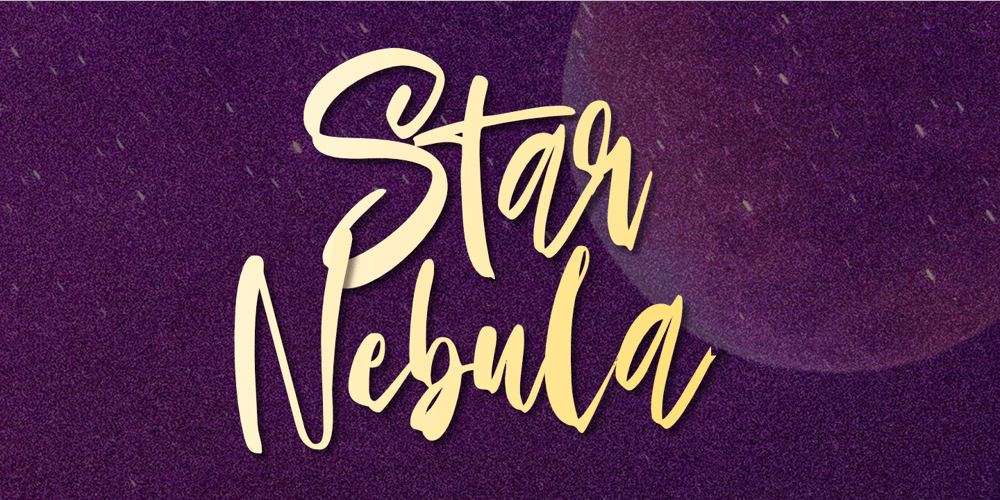
Star Nebula Font Family was designed by Nurul Hidayani and published by Olivetype. Star Nebula contains 1 styles and family package options. Take a walk in outer space and discover a new amazing experience with Star Nebula. With its unique brush script style and cool texture, you can use this vector brush font to create eye-catching logos, headlines, etc.So what’s included : Standard Latin Numbers, symbols, and punctuations Ligatures and Swashes Multilingual Support. Accented Characters : ÀÁÂÃÄÅÆÇÈÉÊËÌÍÎÏÑÒÓÔÕÖØŒŠÙÚÛÜŸÝŽàáâãäåæçèéêëìíîïñòóôõöøœšùúûüýÿžß PUA Encoded and fully accessible without additional design software Simple Installations Works on PC & Mac Thank You!